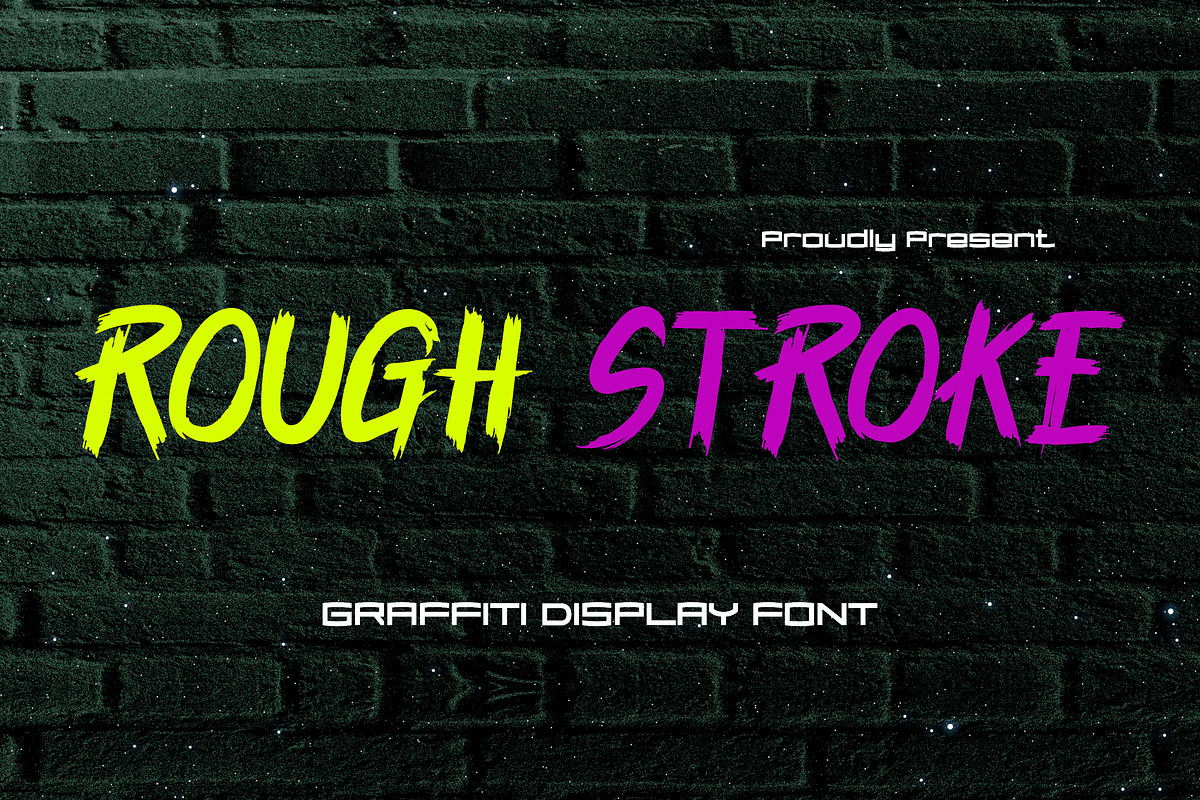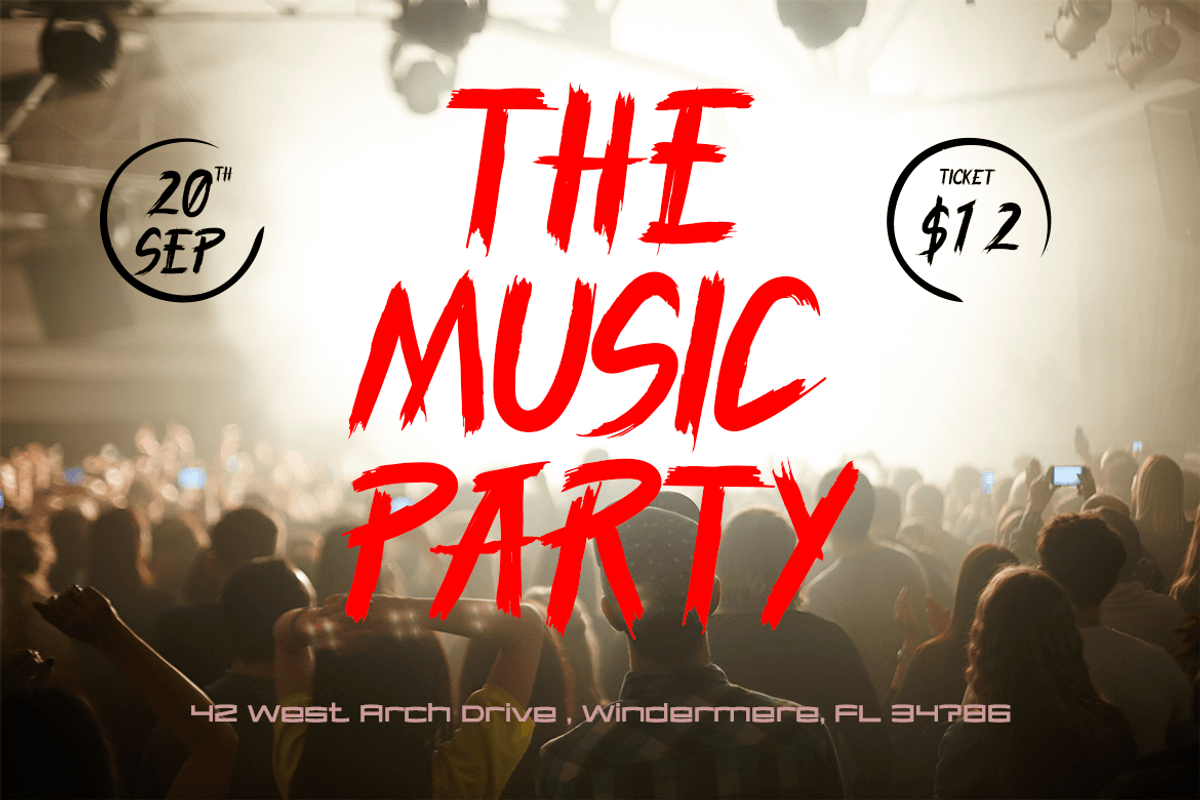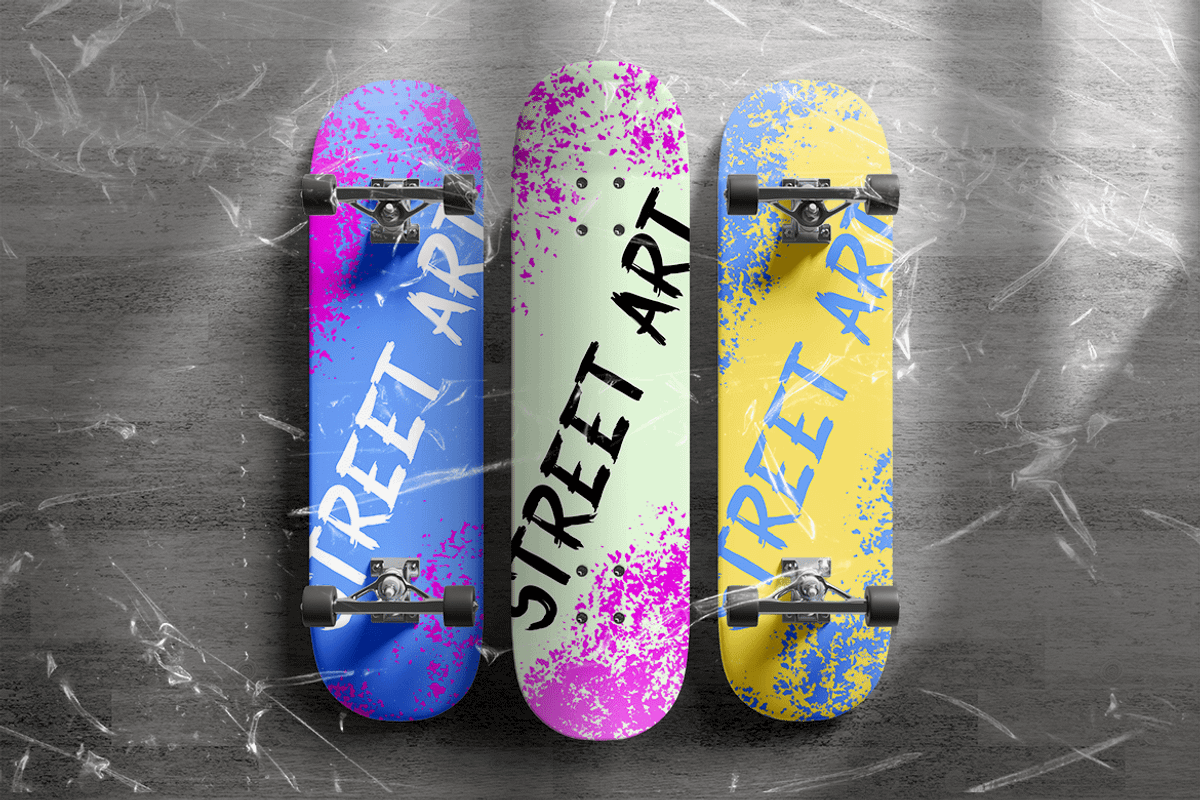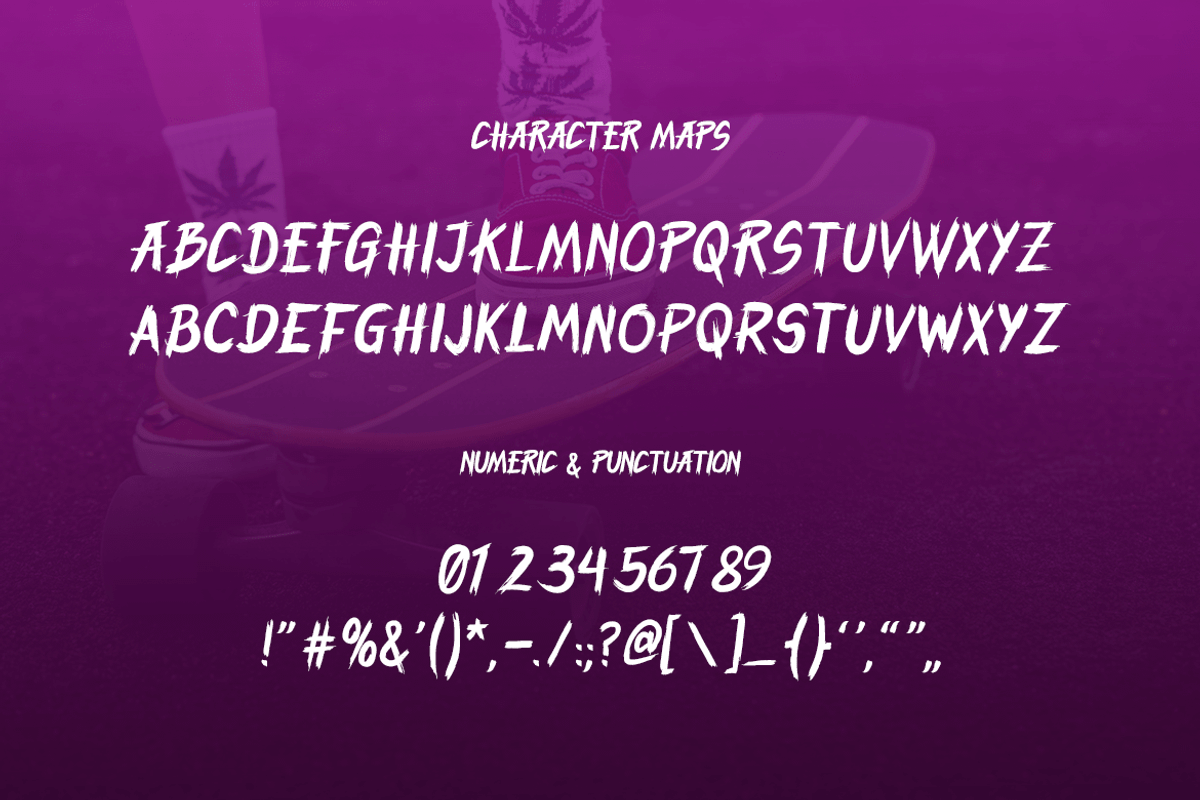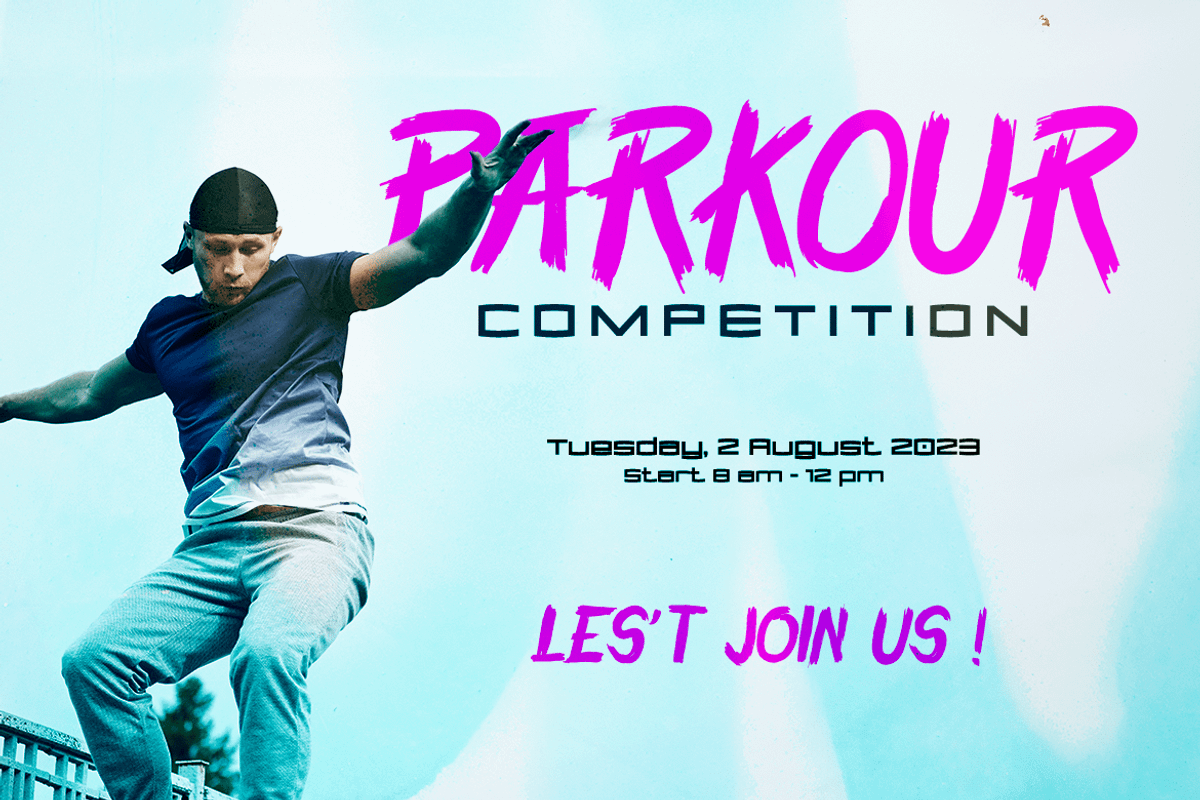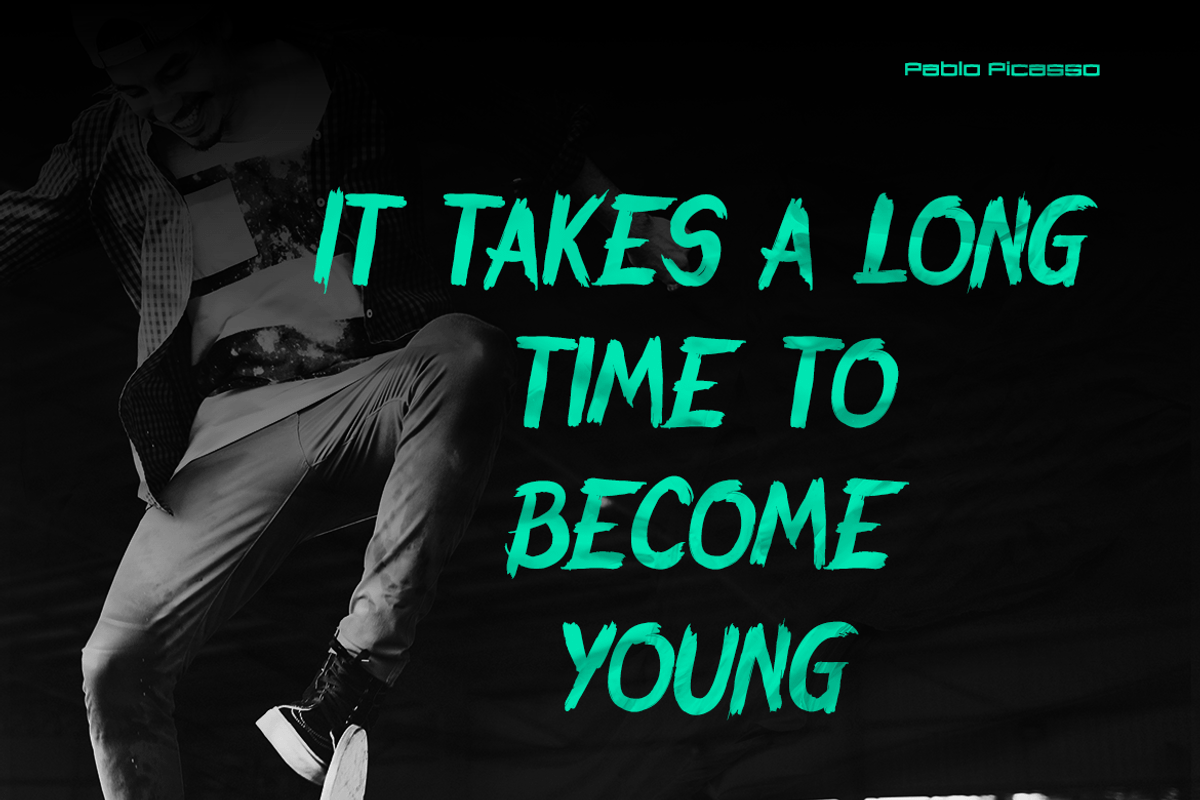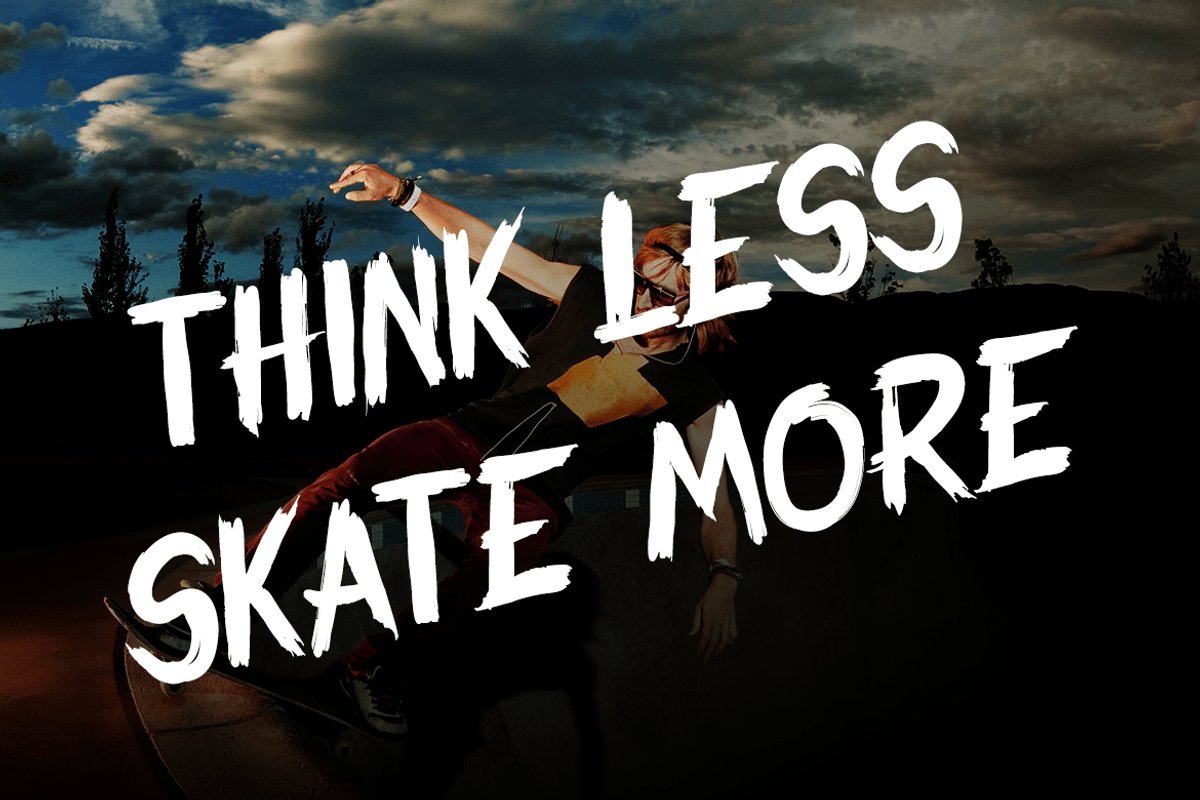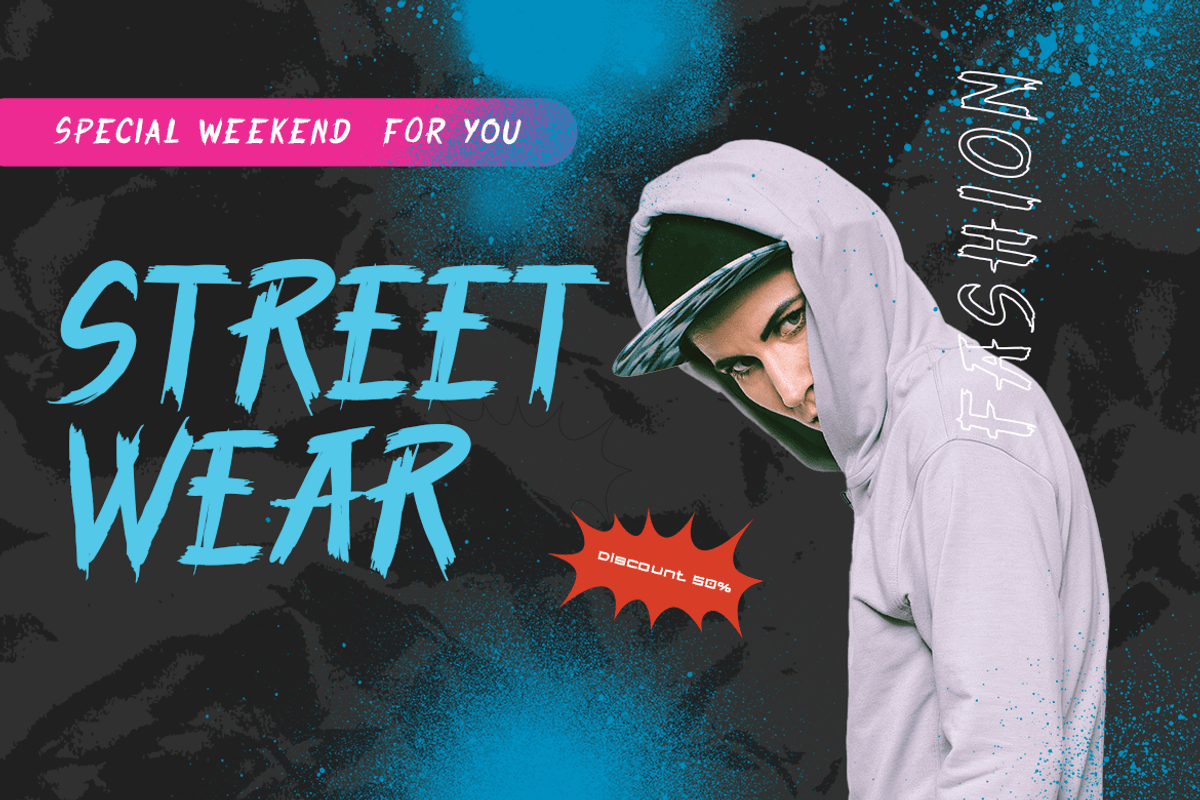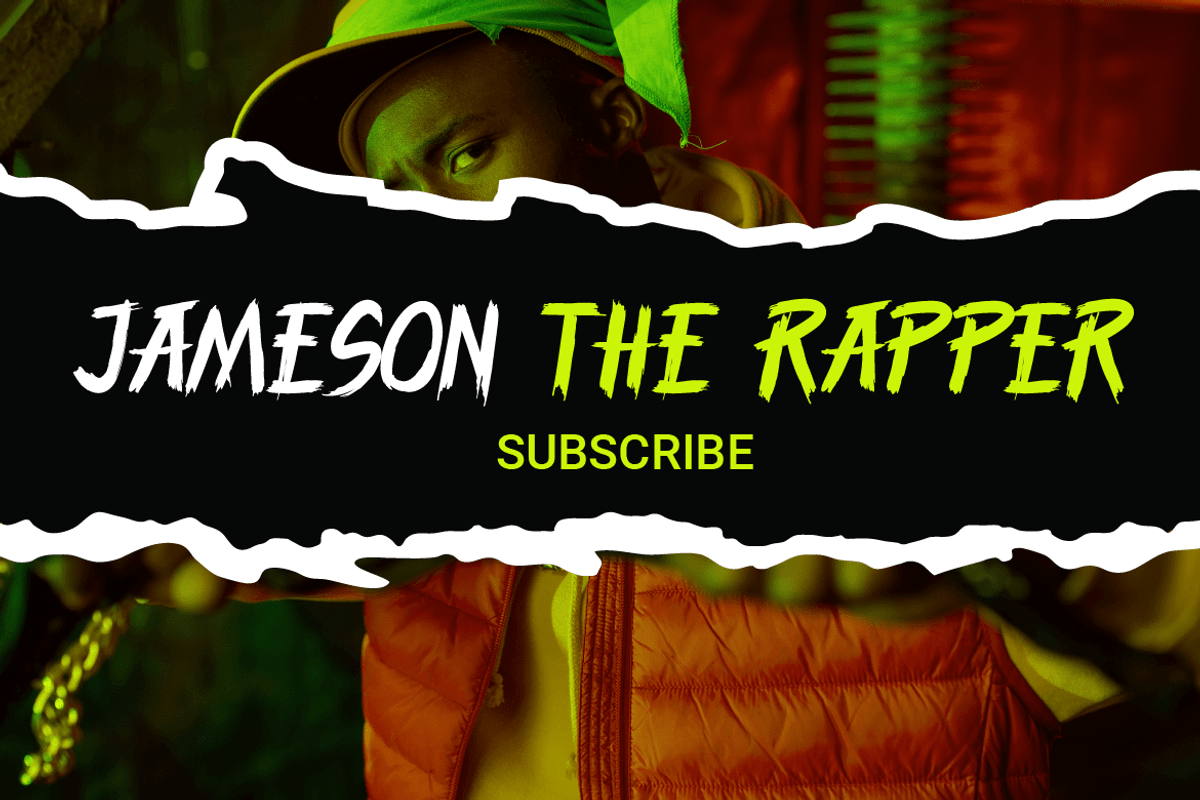
Rough Stroke – Graffiti Display Font
Introducing Rough Stroke – the ultimate graffiti display font for your creative projects! This unique typeface is perfect for designers, artists, and anyone looking to add a touch of edgy, urban flair to their work. With its bold, handwritten style and modern design, Rough Stroke is the perfect choice for Instagram, YouTube, and music-themed projects.
Crafted by Modestype, this font is a true masterpiece that combines the raw energy of graffiti with the sophistication of a modern display font. Its distinctive style is perfect for movie posters, album covers, and any project that needs a bold, eye-catching font that stands out from the crowd.
Rough Stroke is not just any handwriting font – it comes with plenty of nature foliage and floral elements that add an organic, natural feel to your designs. This makes it a great choice for projects that focus on environmental themes or that celebrate the beauty of the great outdoors.
With its bold, modern design and unique style, Rough Stroke is the perfect choice for designers who want to make a statement. So why settle for a boring, generic font when you can choose Rough Stroke and add some serious attitude to your work? Download it now and let your creativity run wild!
- Basic Latin A-Z and a-z, Numbers, Punctuation